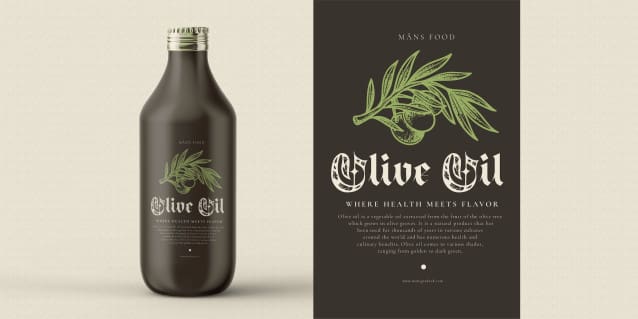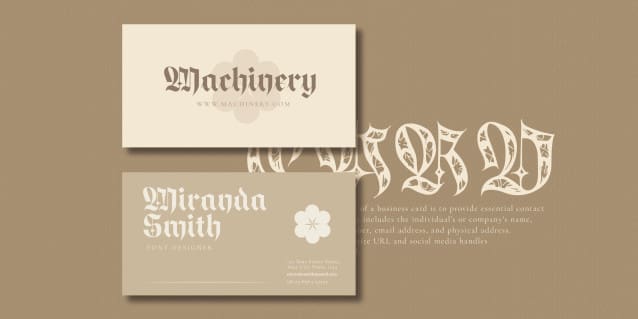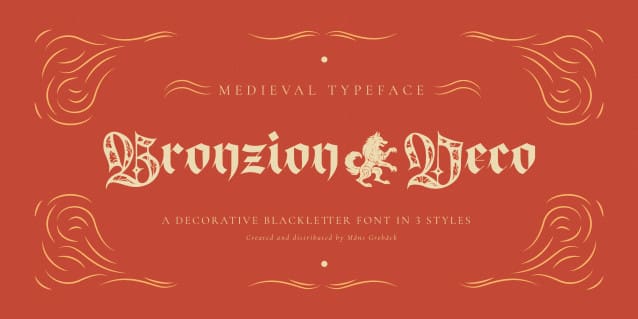
Bronzion Deco Font
Bronzion Deco Font is an illuminated blackletter typeface rooted in medieval aesthetics.  Perfectly fit for branding, logo, wedding things, greeting cards, fashion, lookbook, marketing promotion, anytime you want to look fancy elegant but still casual.
Use characters 🌲🌳🎠🐂🐅🐆🐈🐉🐎🐕🐦🐯🐲🐺👑👸🗡🤴🦁🦅🦇🦌🦎🦓🦖 to create heraldry-like logos and symbols.
Example: Magic🐉Empire